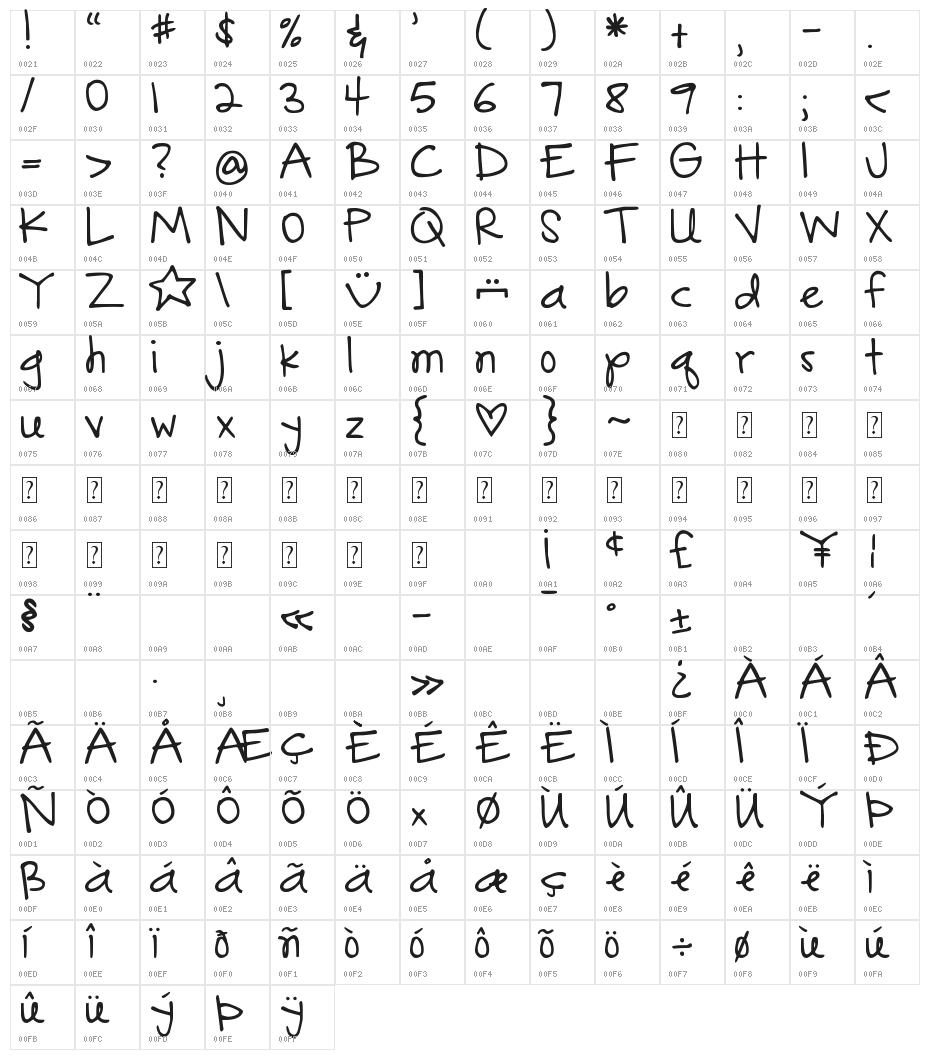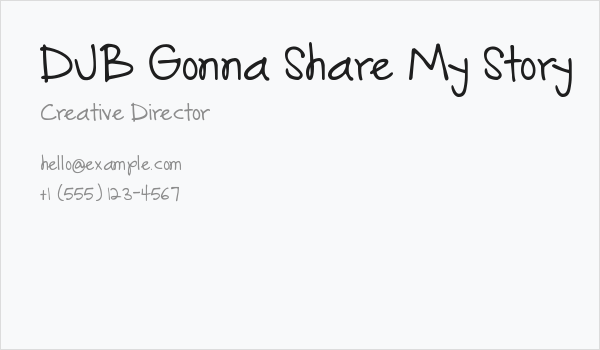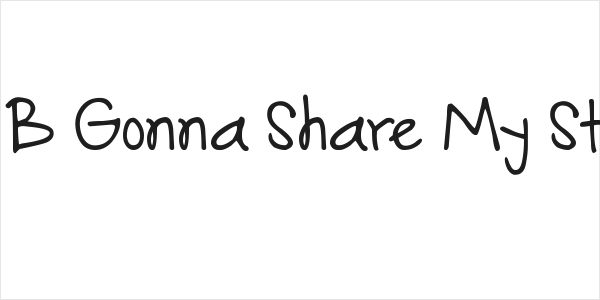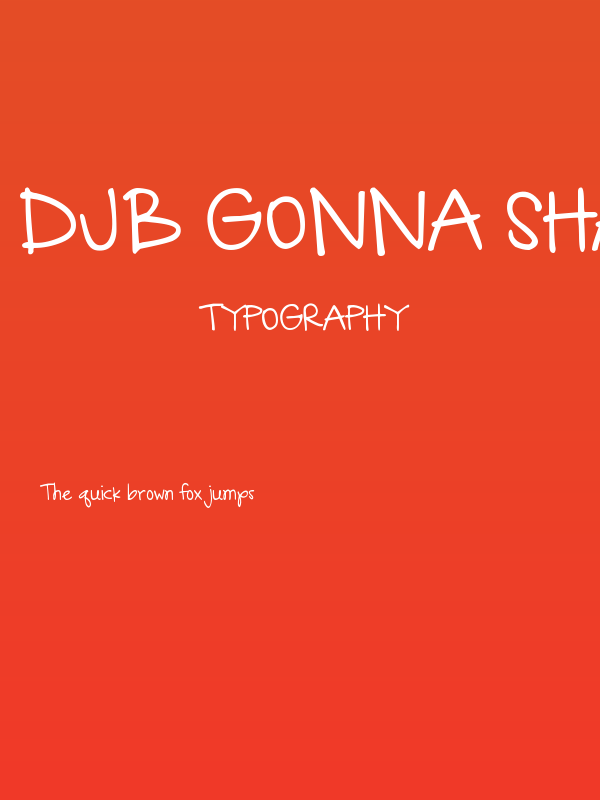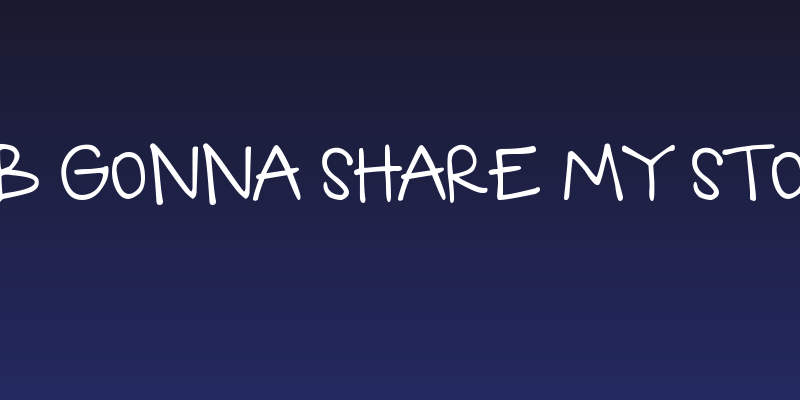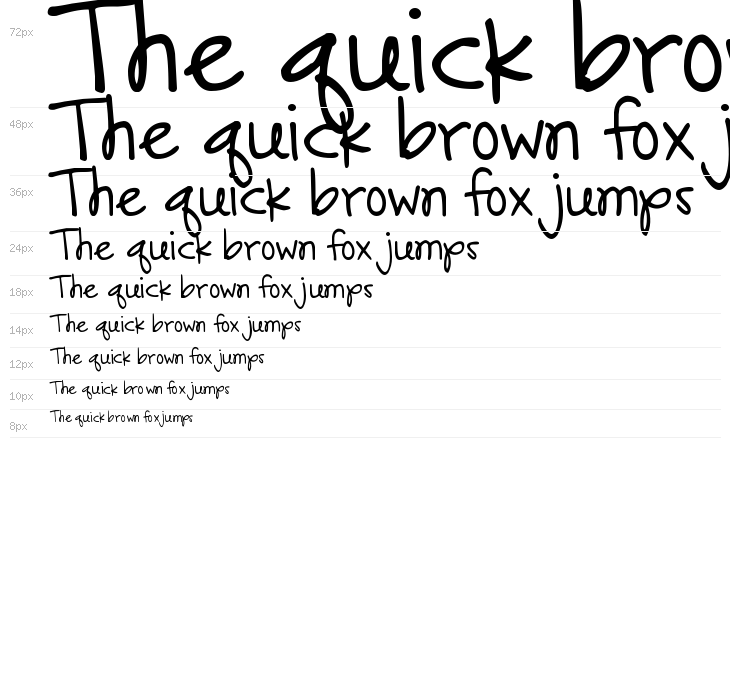
DJB Gonna Share My Story Font
DJB Gonna Share My Story Description
This font features a playful and informal handwritten style, characterized by its casual and friendly appearance. The letters are slightly irregular, adding a personal touch that mimics natural handwriting. The uppercase and lowercase letters are well-balanced, with a consistent flow that enhances readability. Numbers and special characters maintain the same whimsical style, making them suitable for creative projects. The strokes are smooth and rounded, contributing to the font's approachable and warm feel.
| Proposed Projects | Ideal for personal notes, greeting cards, children's books, and informal branding. |